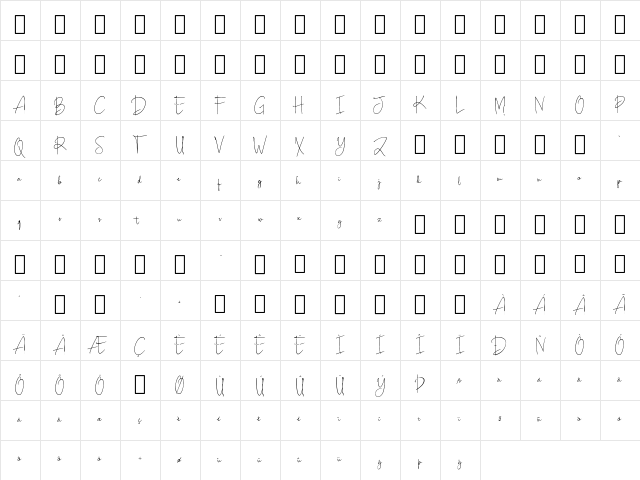
Scripty Demo Regular
Design Context for Scripty Demo Typeface
Scripty Demo flows with the natural rhythm of handwritten lettering, making it ideal for designs that call for warmth and personal expression.
Font Pairing: Combine Scripty Demo with a simple geometric sans for maximum contrast — the tension between flowing curves and clean structure is a classic typographic pairing.
Pro Tip: Use Scripty Demo for short runs of text — names, titles, or taglines. Extended body copy in script faces tires the eye quickly.